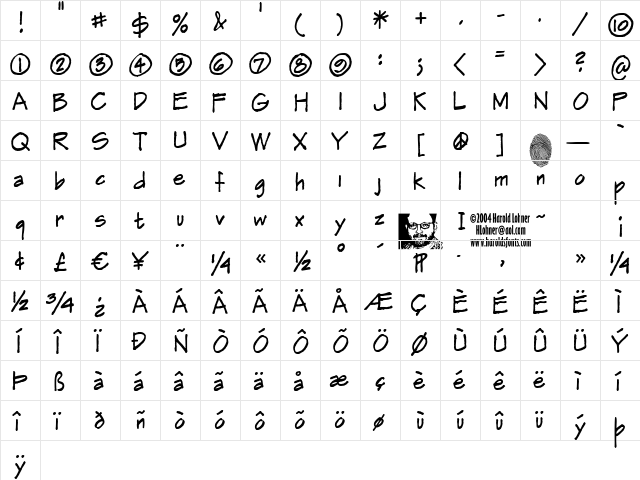
Frank the ArchitectDemo Regular
Design Context for Frank the ArchitectDemo Typeface
Frank the ArchitectDemo offers clean, dependable letterforms without strong stylistic allegiance, making it a practical choice for designers who need flexibility.